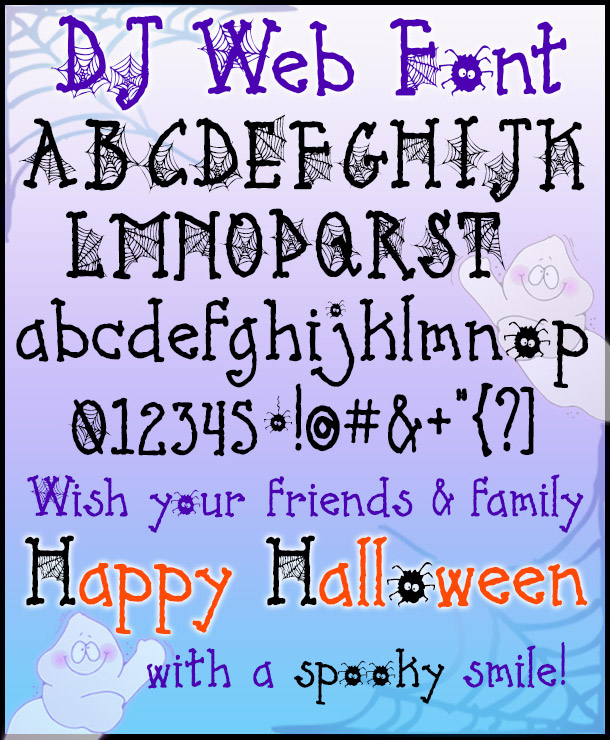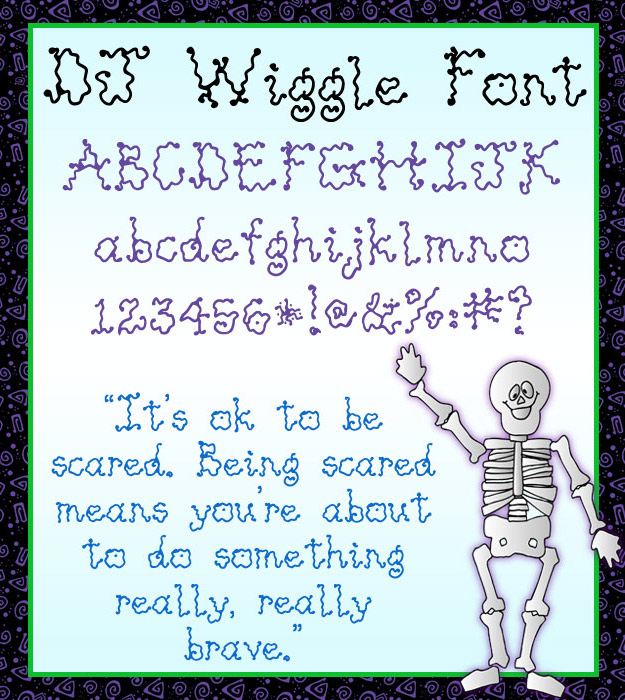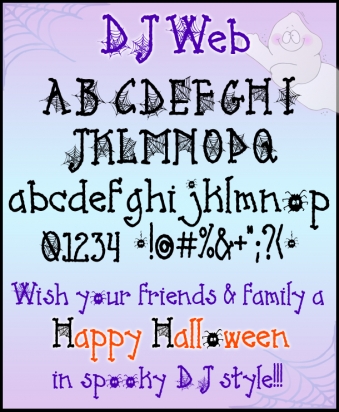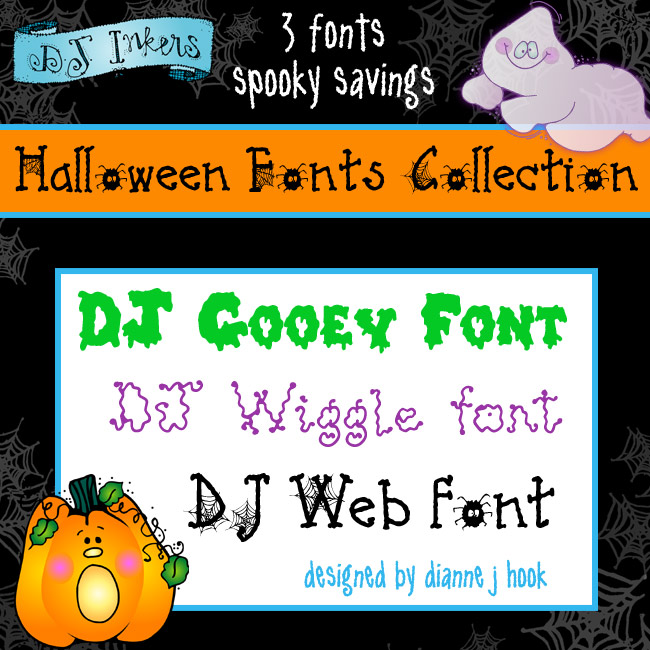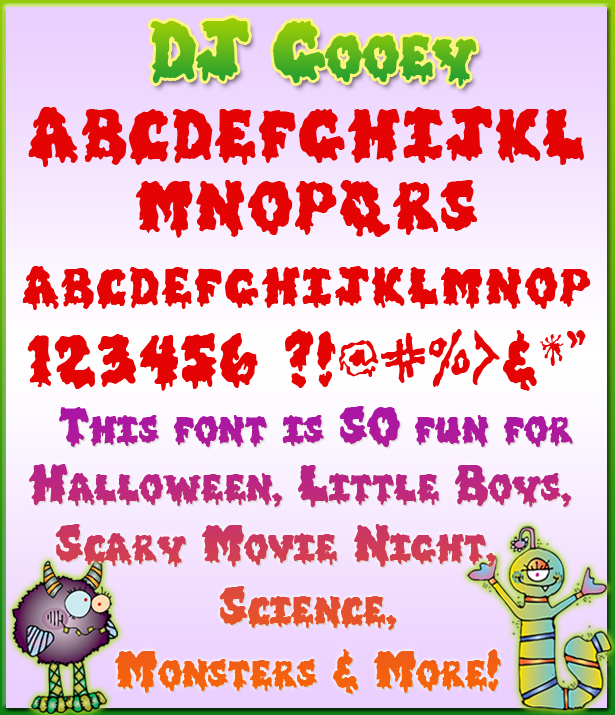
DJ Inker's Halloween Fonts Collection is a real treat! This set includes 3 frighteningly fun fonts to help you spin a web of smiles on all of your Halloween projects this year. And it's no trick that you'll save by buying them together. Collection includes:  DJ Gooey, DJ Wiggle and DJ Web fonts.